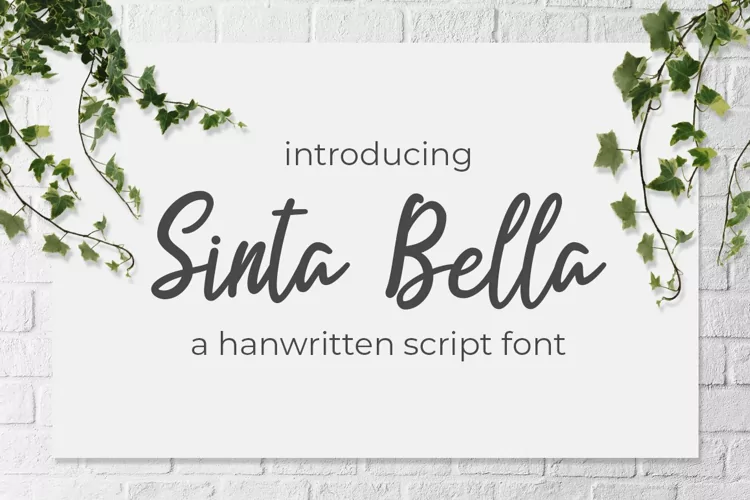
Sinta Bella
Sinta Bella is a stylish and incredibly elegant script font. It looks stunning on wedding invitations, thank you cards, quotes, greeting cards, logos, business cards and every other design which needs a handwritten touch.
Sinta Bella